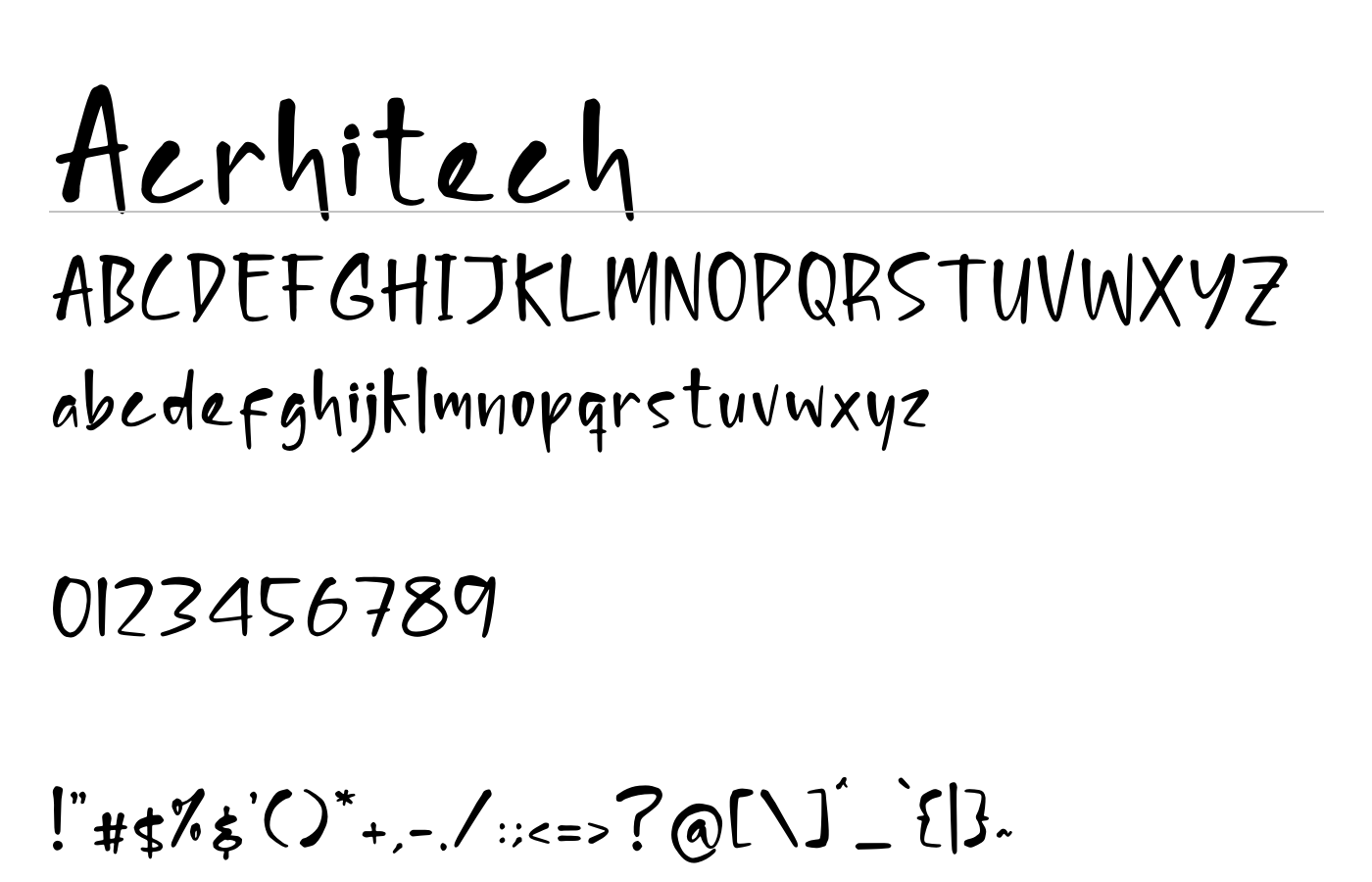
Acrhitech is a casual, handwritten sans-serif font with a light to medium weight and a tall x-height, giving it a friendly and approachable feel. Its irregular, slightly playful letterforms with variable stroke thickness add a human touch, making it ideal for creative projects, informal branding, and personal communications. This font works well in headlines, invitations, and packaging where a warm, authentic vibe is desired.
Acrhitech Font
About Acrhitech Font